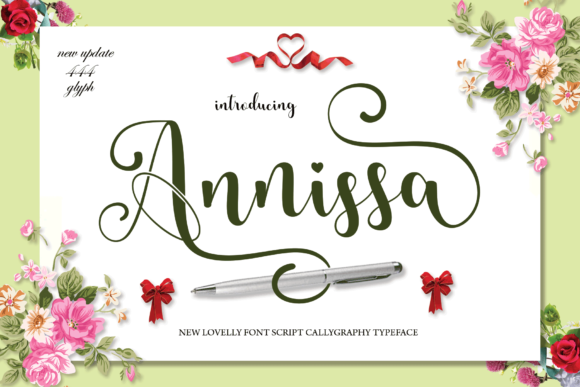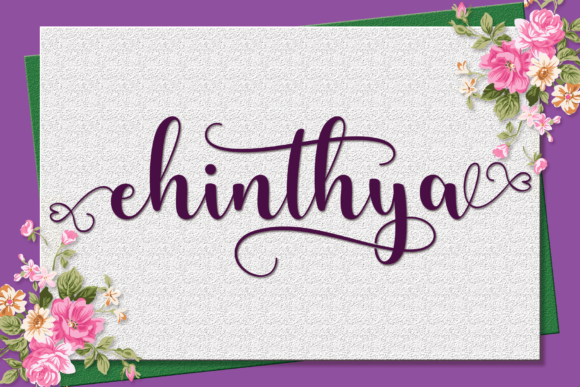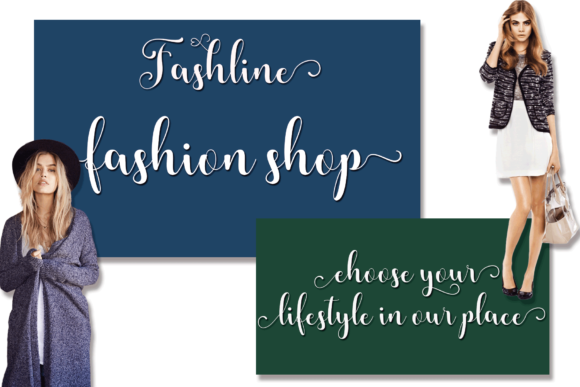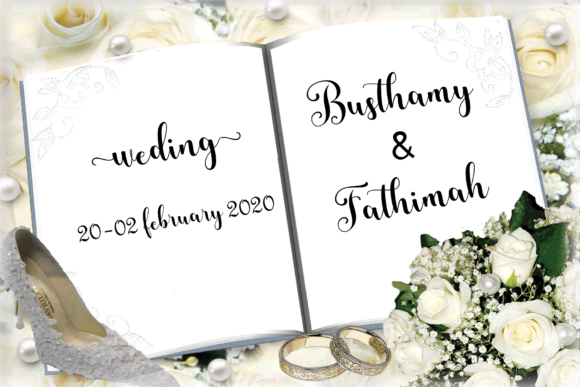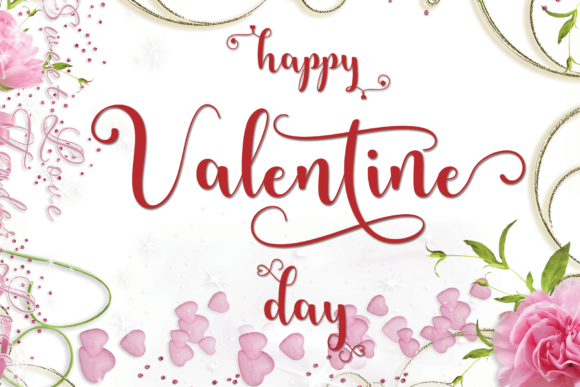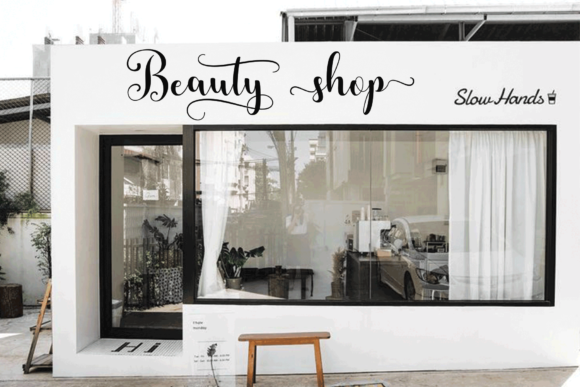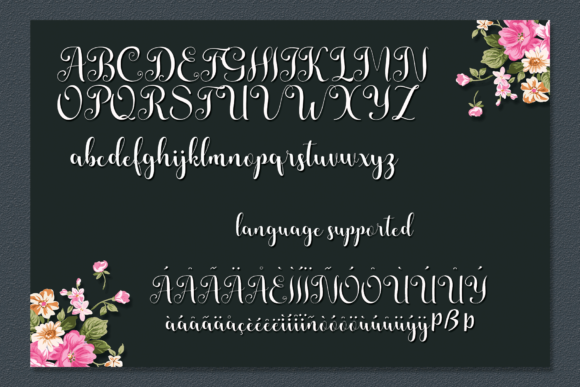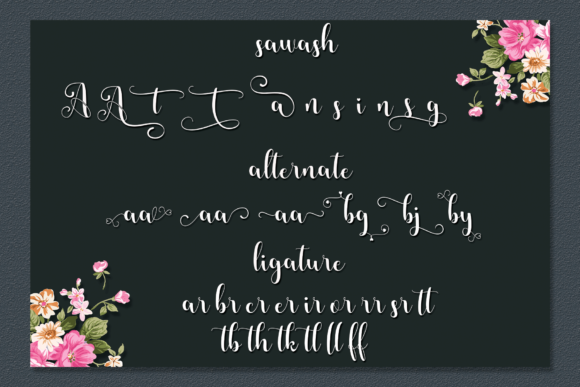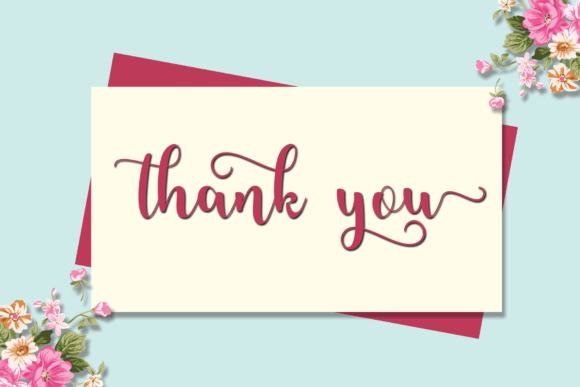
Annissa Font
About Annissa Font
Annissa is a modern calligraphy font with a magical twist! It’s perfect for logos, name cards, magazine layouts, invitations, headers, and much more! Ignite your creativity with this stunning font.